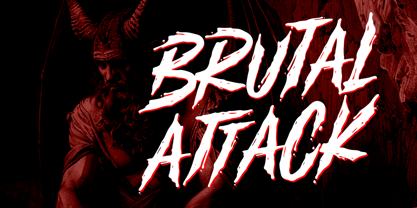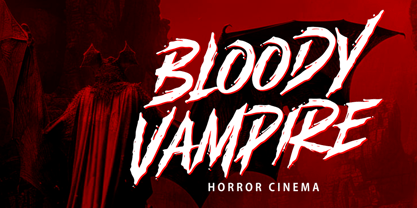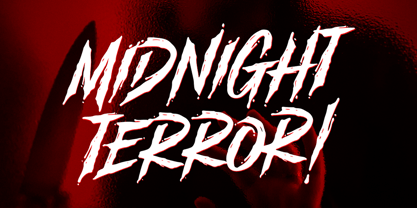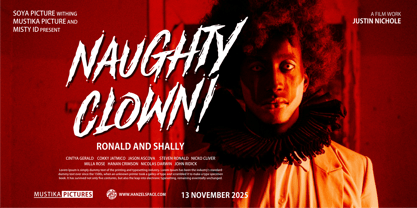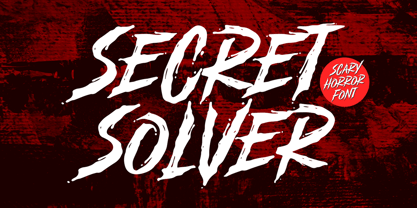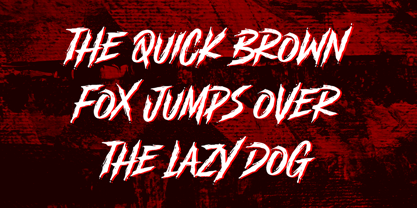
Secret Solver
La familia tipográfica Secret Solver fue diseñada por Hanief Farandi y publicada por Hanzel Space. Secret Solver contiene 1 estilos. Más información sobre esta familia
Need a spooky touch? Secret Solver is a cool font for any horror movie. It's great for any graphic design, from logos to title cards. Add a spooky touch to your projects.
Secret Solver is a cool display typeface for movie poster titles, video games, apparel designs, album covers, or anything horror-themed. Secret Solver is the perfect font solution for designing horror-themed projects. Try it today!
Features:
• Uppercase & Lowercase
• Numerals & Punctuation
• Ligatures
• Multilanguage Supports